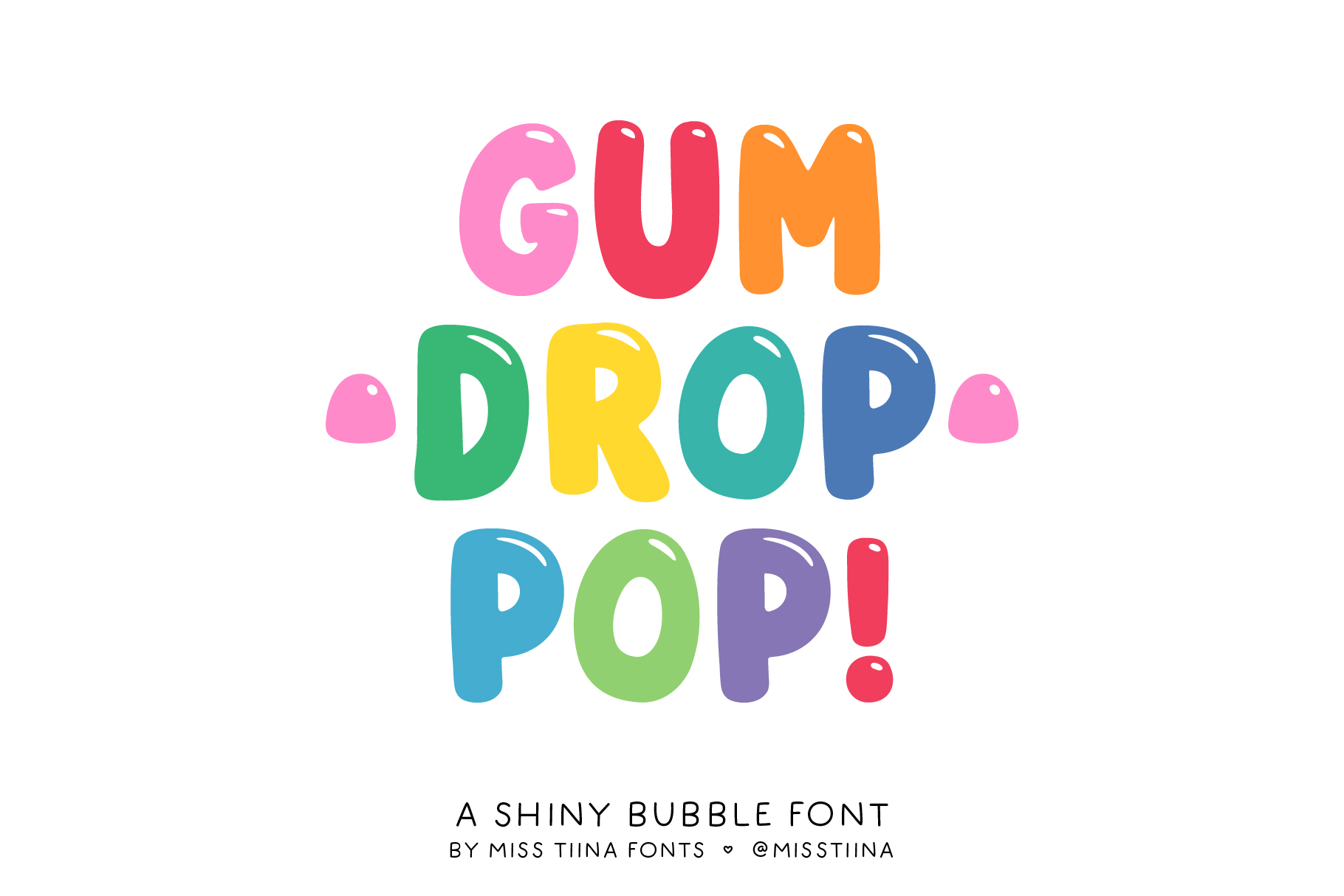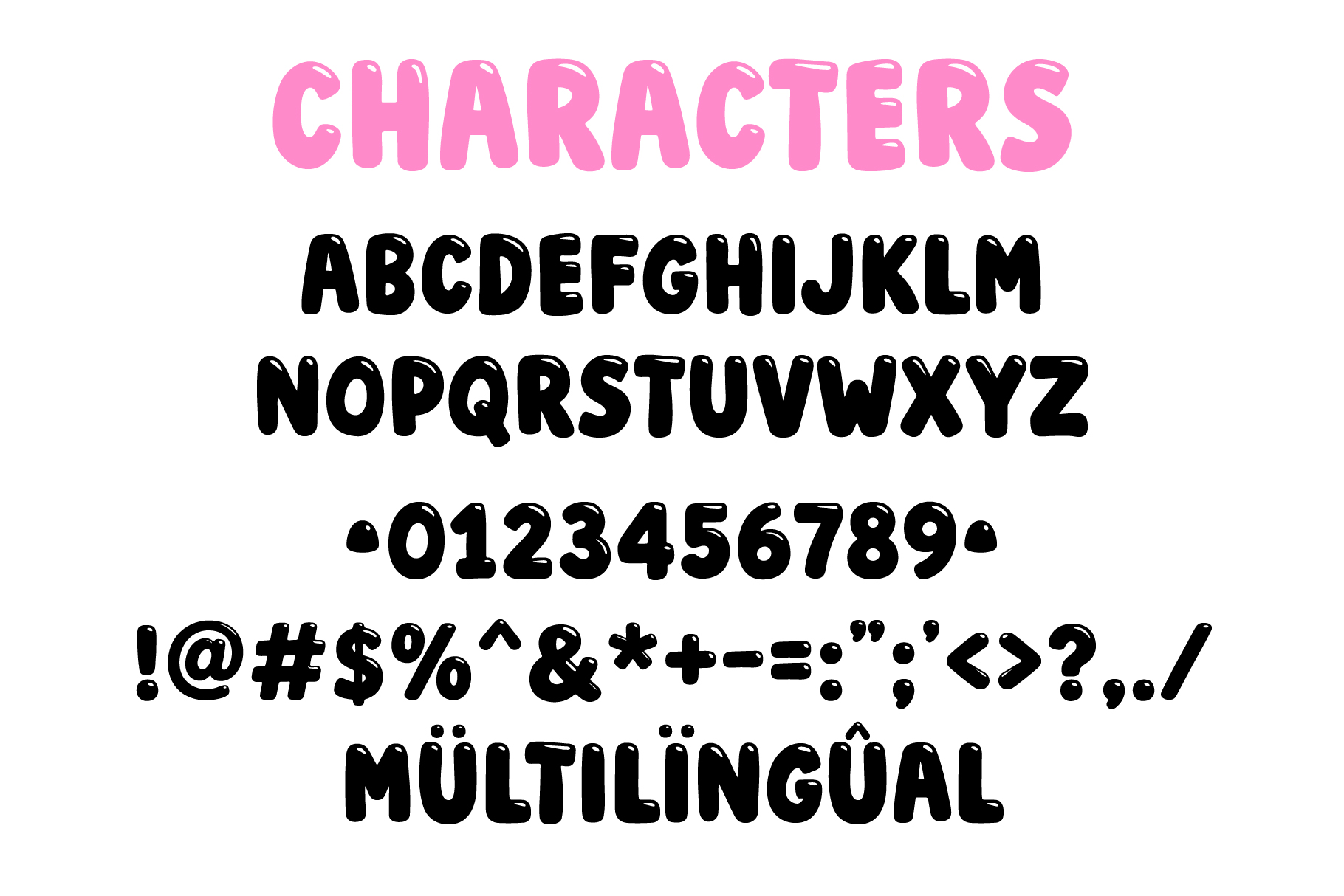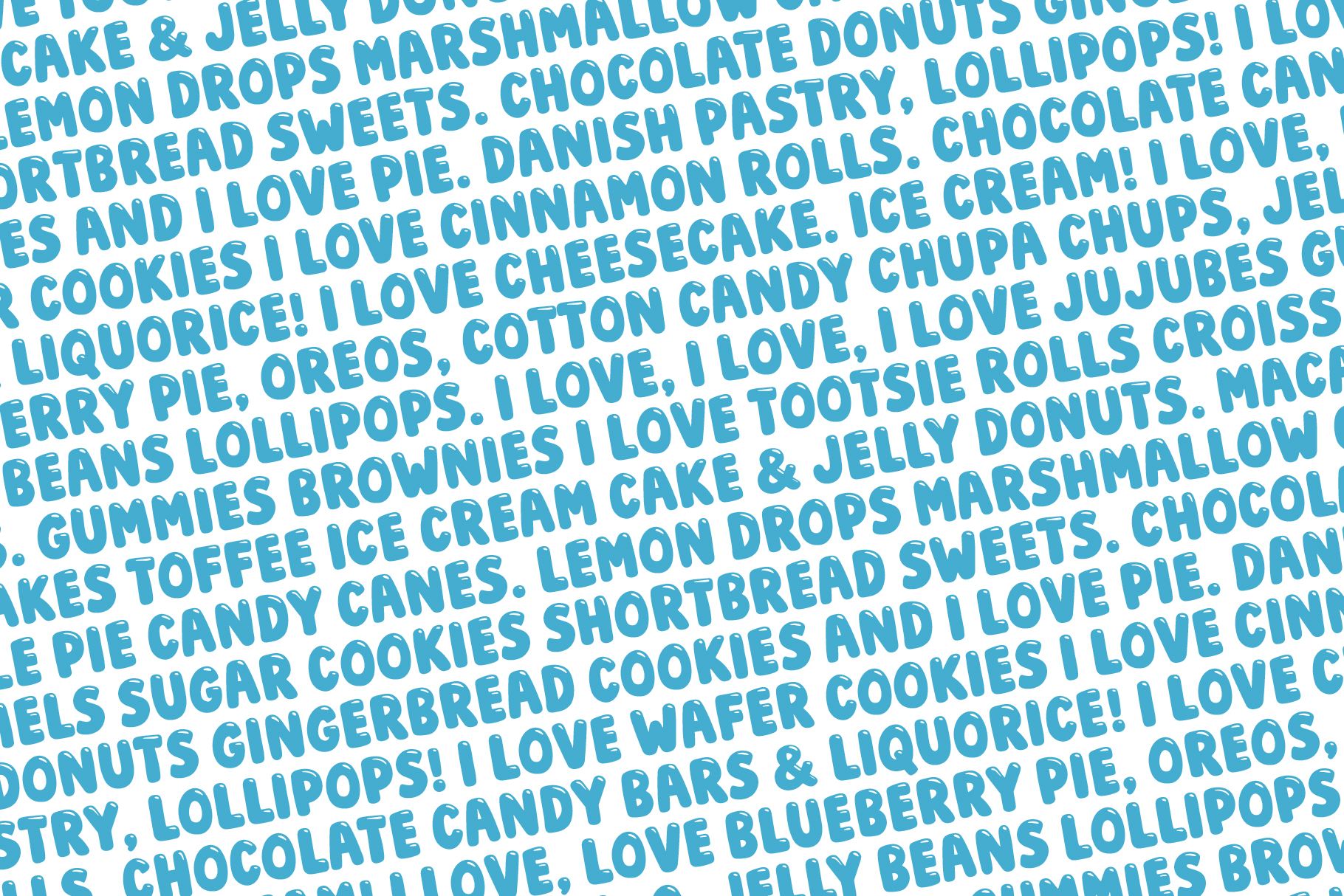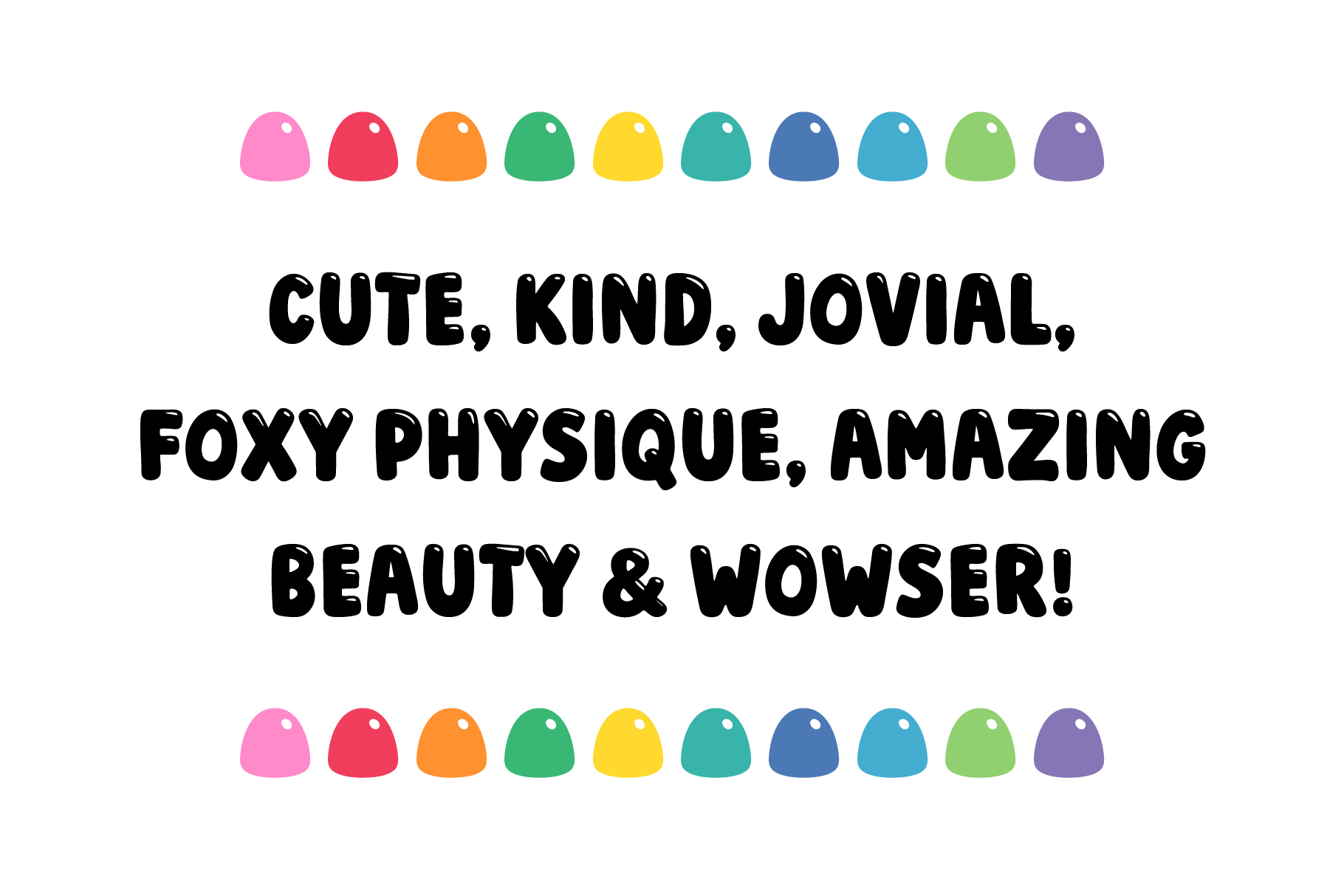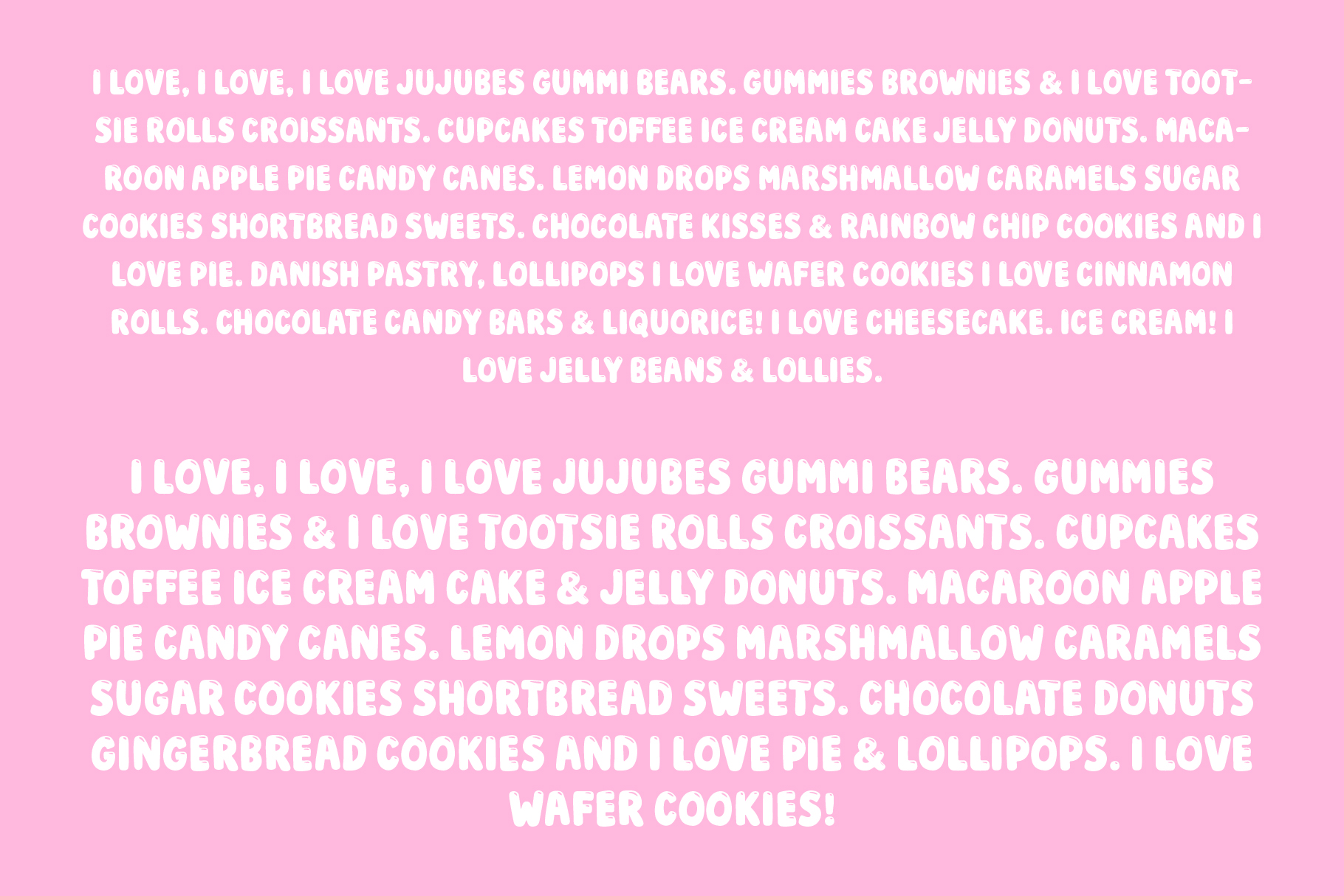
MTF Gum Drop Pop
Say hello to Gum Drop Pop 🍬
This puffy, happy font features rounded, gumdrop-like letters with a smooth, candy-sweet finish. Fun, bold, and full of bounce, it’s perfect for designs that need a little extra joy and a whole lot of pop.